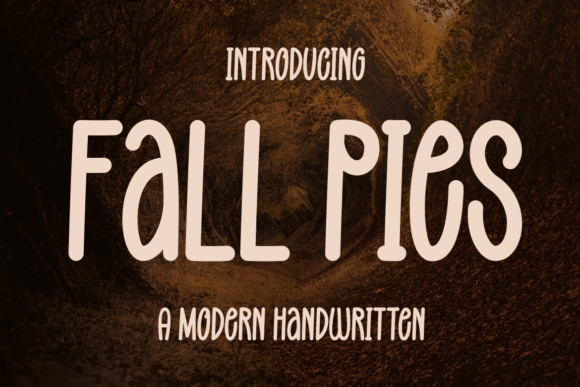
Fall Pies Font: A Warm and Nostalgic Typeface for Autumn-Inspired Designs
The arrival of fall brings with it a sense of nostalgia and wonder, as the leaves change colors and the air grows crisper. For designers, this season offers a wealth of inspiration for creating warm and inviting designs that capture the essence of autumn. One font that embodies the spirit of fall is the Fall Pies Font, a beautiful typeface that evokes the delicate lines and gentle curves of the season.
What is Fall Pies Font?
Fall Pies Font is a carefully crafted typeface that features a unique style that creates a warm sense of nostalgia and recalls the natural wonder of the fall season. The font’s delicate lines and gentle curves add dimension to the letter characters, creating an impression of softness and tranquility. This makes it an ideal choice for designers looking to create autumn-inspired designs that are both visually appealing and emotionally resonant.
Design Applications for Fall Pies Font
Fall Pies Font is highly suitable for a wide range of design projects that aim to depict the beauty and charm of the autumn season. Some of the design applications where this font truly shines include:
- Invitations: Whether you’re designing invitations for a fall wedding, harvest festival, or Thanksgiving celebration, Fall Pies Font is an excellent choice. The font’s warm and inviting style sets the tone for a cozy and intimate gathering.
- Greeting Cards: Fall Pies Font is perfect for creating greeting cards that capture the spirit of the season. From Thanksgiving cards to Halloween invitations, this font adds a touch of autumnal charm to any design.
- Posters: For designers looking to create eye-catching posters that showcase the beauty of fall, Fall Pies Font is an excellent choice. The font’s bold and yet delicate style makes it perfect for creating stunning posters that grab attention.
- Creative Projects: Fall Pies Font can be used in a wide range of creative projects, from scrapbooking to digital art. The font’s versatility and charm make it an excellent addition to any design project that aims to capture the essence of autumn.
Key Features of Fall Pies Font
So, what makes Fall Pies Font so special? Here are some of the key features that set this font apart:
- Delicate Lines: The font’s delicate lines add a touch of elegance and sophistication to any design.
- Gentle Curves: The gentle curves of Fall Pies Font create a sense of softness and tranquility, making it perfect for designs that aim to evoke a sense of calm.
- Warm and Inviting Style: The font’s warm and inviting style makes it perfect for designs that aim to capture the essence of the autumn season.
Tips for Using Fall Pies Font
To get the most out of Fall Pies Font, here are some tips to keep in mind:
- Pair with Earthy Colors: Fall Pies Font looks stunning when paired with earthy colors such as orange, yellow, and brown.
- Experiment with Font Sizes: Don’t be afraid to experiment with different font sizes to create visual interest and hierarchy in your design.
- Add Autumnal Elements: Consider adding autumnal elements such as leaves, acorns, or pumpkins to your design to enhance the seasonal theme.
Fall Pies Font is a beautiful and versatile typeface that captures the essence of the autumn season. With its delicate lines, gentle curves, and warm and inviting style, this font is perfect for designers looking to create stunning autumn-inspired designs. Whether you’re designing invitations, greeting cards, posters, or creative projects, Fall Pies Font is an excellent choice. So why not give it a try and see how it can elevate your designs to the next level?